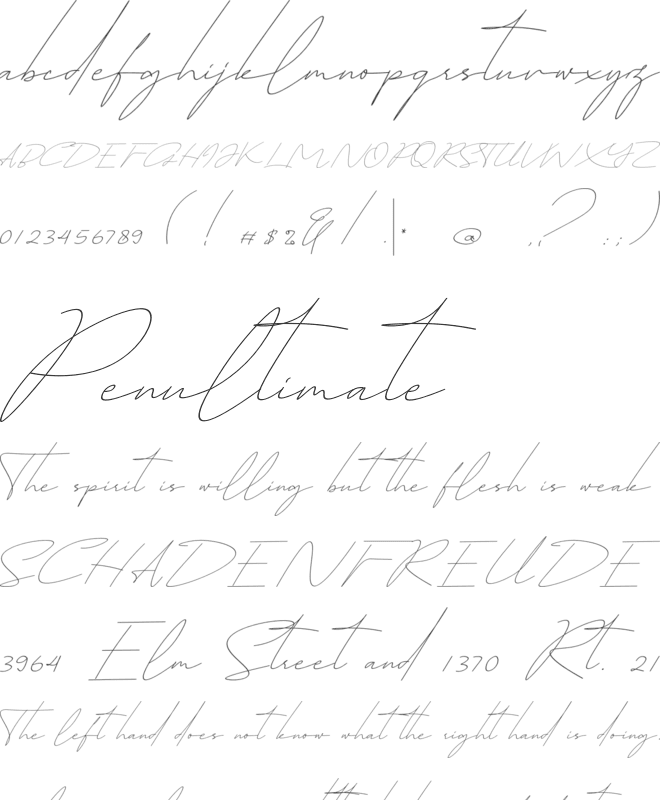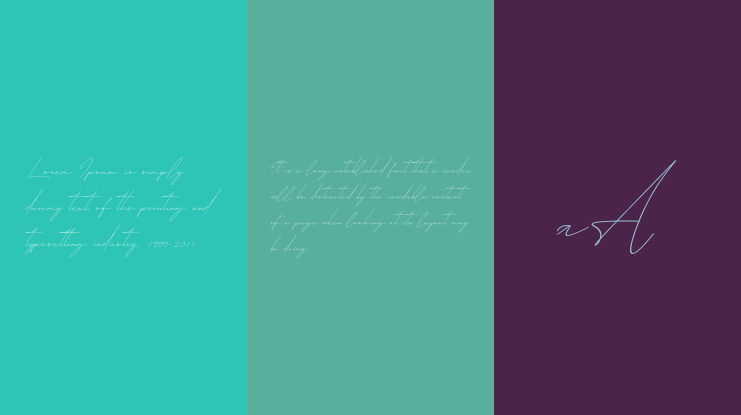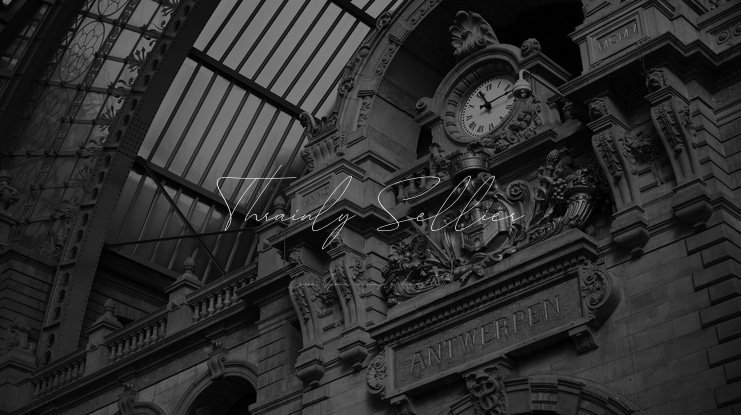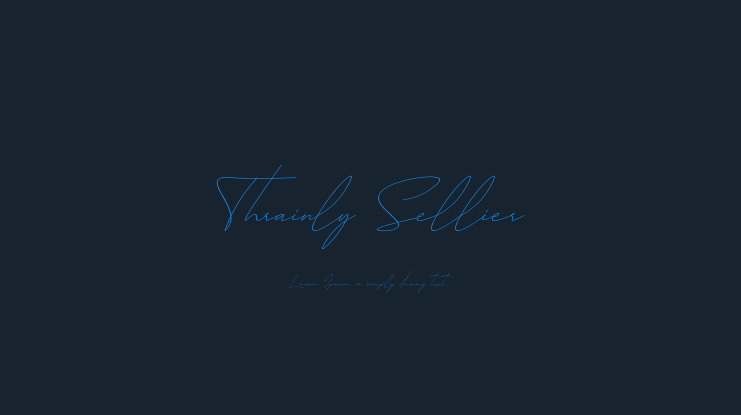
Thrainly Sellier Font
Thrainly Sellier is a classy Handwritten script font with authentic styles. Includes uppercase and lowercase letters, numerals, punctuation, alternates, ligatures, swash and multilingual support.